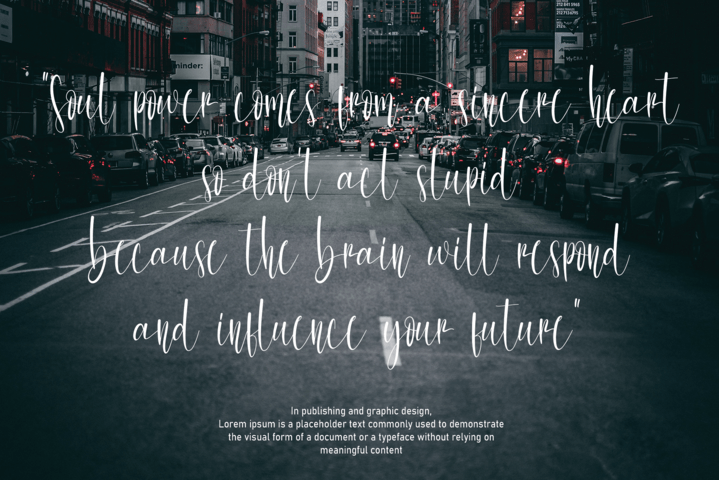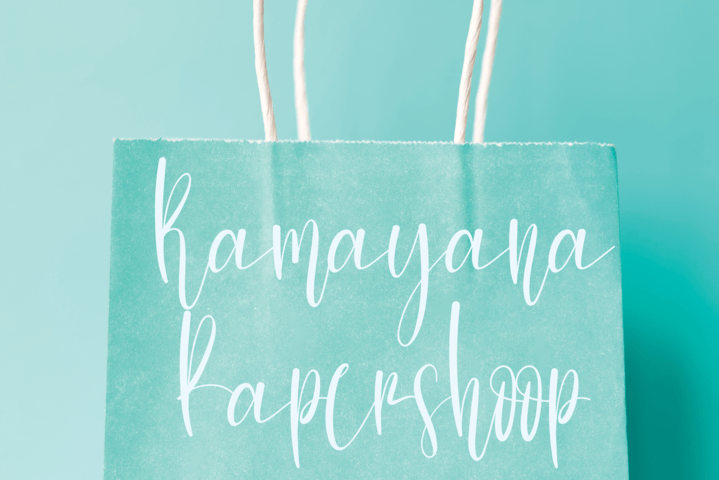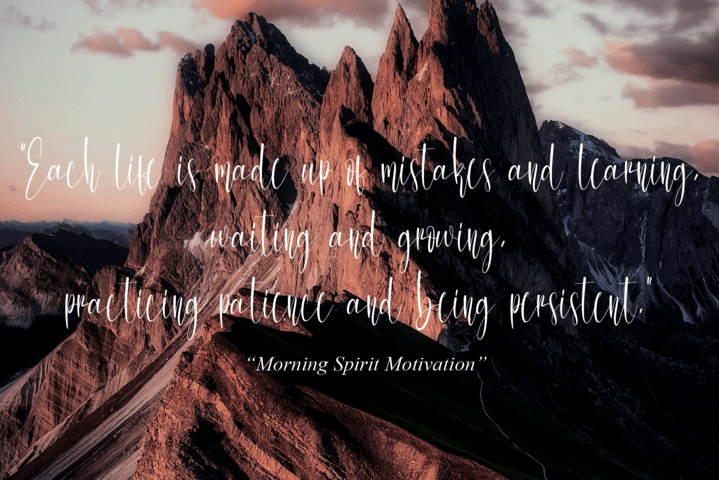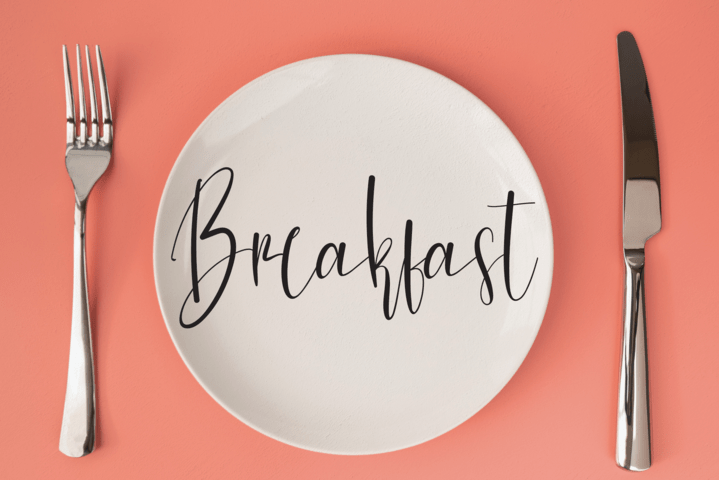
Tough Girl Font
Tough Girl Script Font
It’s a creative script handmade font. This font is suitable for various products such as invitations, product packaging, quotes, product design, crafter, labels, photography, watermarks, logos & branding.